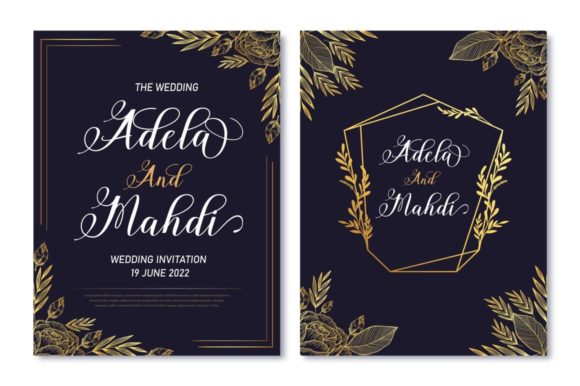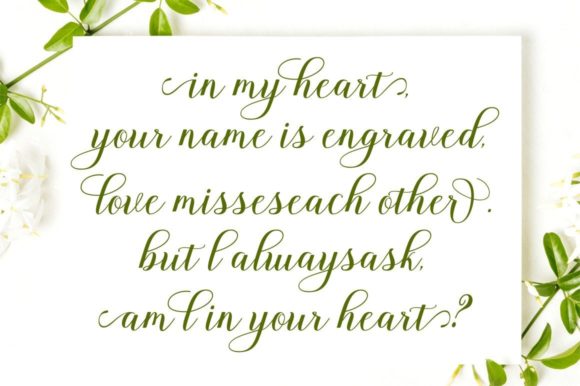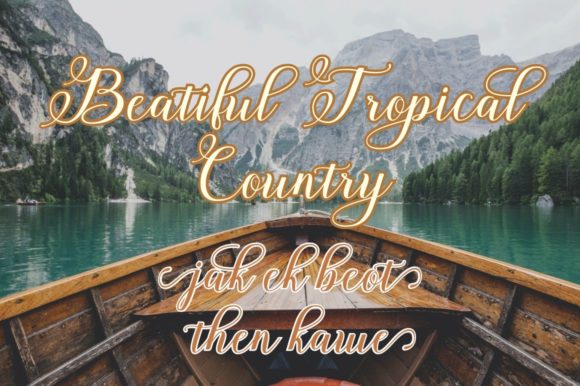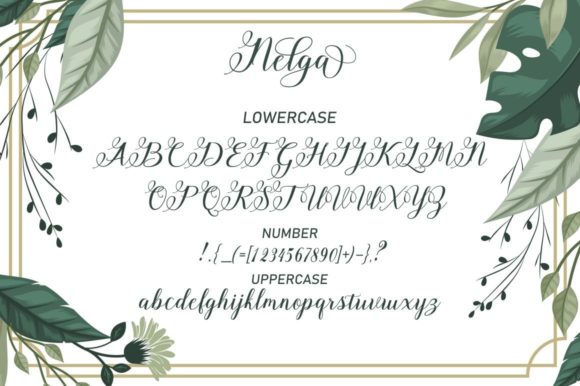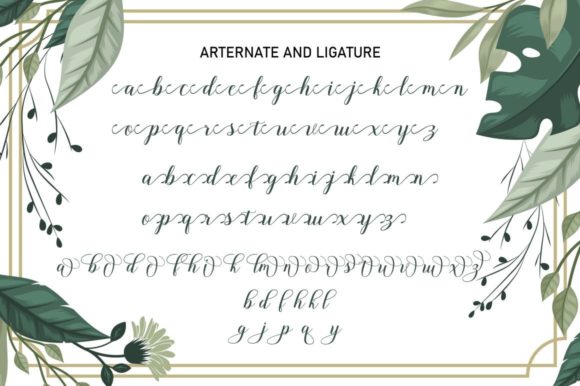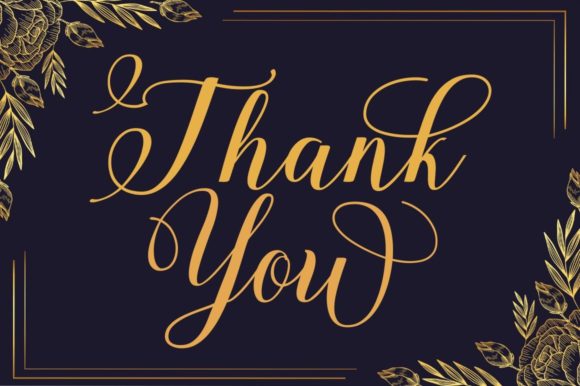
Introduction to Nelga Script Font
As a designer, there’s nothing quite like the thrill of bringing a creative project to life. It’s the moment when all the pieces fall into place, and your vision takes shape. For many of us, this moment is often sparked by the perfect font – one that adds a touch of elegance and charm to our design. And that’s exactly what the Nelga Script Font does. With its beautiful, handwritten feel, it’s the perfect choice for everything from wedding invitations to business cards.
But what sets Nelga Script Font apart from other design resources is its versatility and high quality. Whether you’re working on a creative project that requires a unique touch or simply want to elevate your design with a beautiful font, Nelga Script Font is an excellent choice. Plus, with its transparent background and PUA encoded glyphs, you can access all of the font’s features with ease, making it a valuable addition to any designer’s toolkit.
Key Features of Nelga Script Font
- Unique, handwritten style ideal for creative projects and design resources
- High-quality font with transparent background for seamless integration
- Perfect for designers looking for a distinctive, creative font for their next project
Honest Review: Nelga Script Font
As a designer, I’m always on the lookout for high-quality design resources to elevate my creative projects. Recently, I had the chance to work with the Nelga Script Font, and I must say, it’s a great addition to any design library.
What works well: ✨ The Nelga Script Font offers a beautiful, elegant script style that’s perfect for adding a touch of sophistication to your designs. The font is highly customizable, making it easy to adjust the size, color, and spacing to fit your project’s needs. Plus, it’s available for free download, which is a huge plus!
Some limitations: ⚠️ While the font is beautiful, it’s not ideal for projects that require a transparent background. The font’s design makes it difficult to achieve a seamless transparent effect. Additionally, some users may find the font a bit too ornate for certain projects.
Overall, I’m impressed with the Nelga Script Font. It’s a great design resource for any creative project that requires a elegant, high-quality script font. While it may have some limitations, its benefits far outweigh its drawbacks.
- Beautiful, elegant script style
- Perfect for creative projects that require a touch of sophistication
Nelga Script Font
Tips for Getting the Most Out of Nelga Script Font
For optimal results, use Nelga Script Font with a transparent background to achieve a clean and professional look. Experiment with different font sizes and styles to find the perfect fit for your design.
Nelga Script Font is ideal for:
- Quotes and posters
Alternatives to Nelga Script Font
Great Vibes Font is a high-quality, elegant script font perfect for creative projects that require a touch of sophistication. It’s ideal for designers who need a font with a transparent background, making it easy to use in various design resources. Great Vibes Font is a great alternative to Nelga Script Font when you need a more refined and luxurious feel.
Carolyna Pro Font is a modern, handwritten font ideal for designers who want to add a personal touch to their creative project. It’s a great choice for those who need a font with a high level of expressiveness and flair. Carolyna Pro Font is a good alternative to Nelga Script Font when you need a more contemporary and trendy feel.
Ostrich Sans Font is a unique, modern sans-serif font that’s perfect for designers who want to add a touch of whimsy to their creative project. It’s ideal for use in design resources where a high level of customization is required. Ostrich Sans Font is a good alternative to Nelga Script Font when you need a more playful and experimental feel.
Luxurious Script Font
Luxurious Script Font is a high-end, elegant script font perfect for designers who want to add a touch of luxury to their creative project. It’s ideal for use in design resources where a high level of sophistication is required. Luxurious Script Font is a good alternative to Nelga Script Font when you need a more refined and high-quality feel.
No, the Nelga Script Font does not have a transparent background. It’s a solid font with a beautiful, elegant design. However, you can use a design software or a graphics editor to create a transparent background effect if needed.